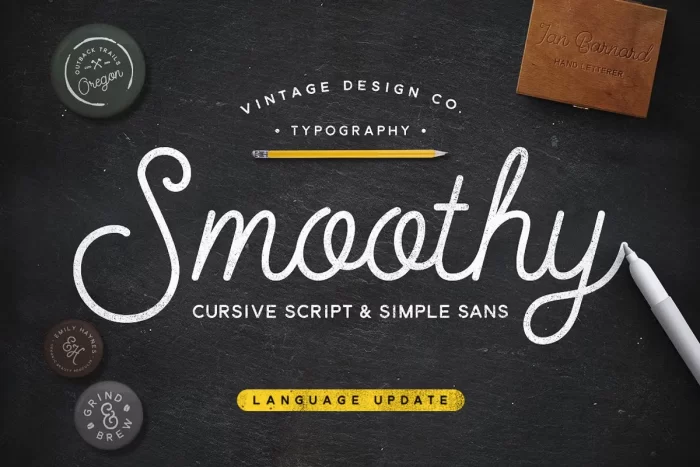
Smoothy Font
Smoothy is a 2 font family with a mono weight cursive script and a complementary subtly rounded sans serif. Based on my most popular hand lettered style, give your work that stylish hand rendered look, with no effort.
Works great applied to logos, prints, quotes, magazine headers, clothing… actually most applications! SMOOTHY cursive has gorgeous capital flourishes, which also work on their own as monograms for logos.